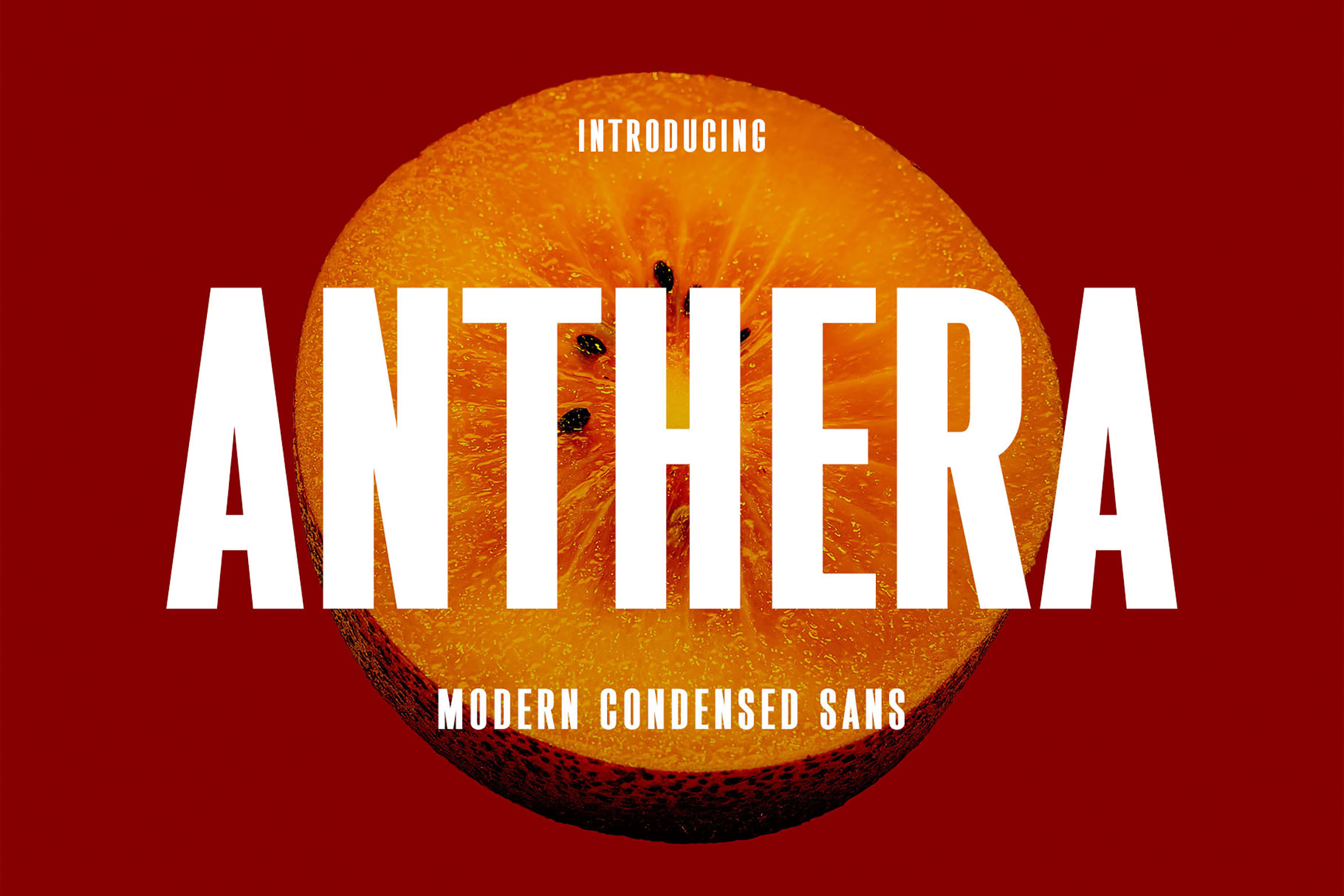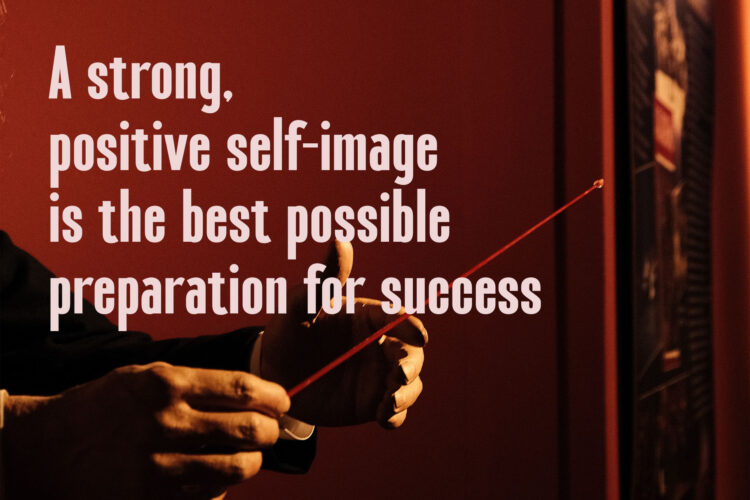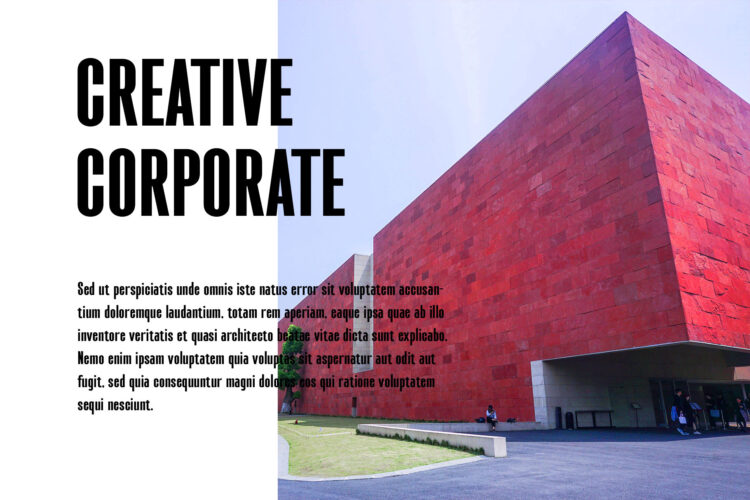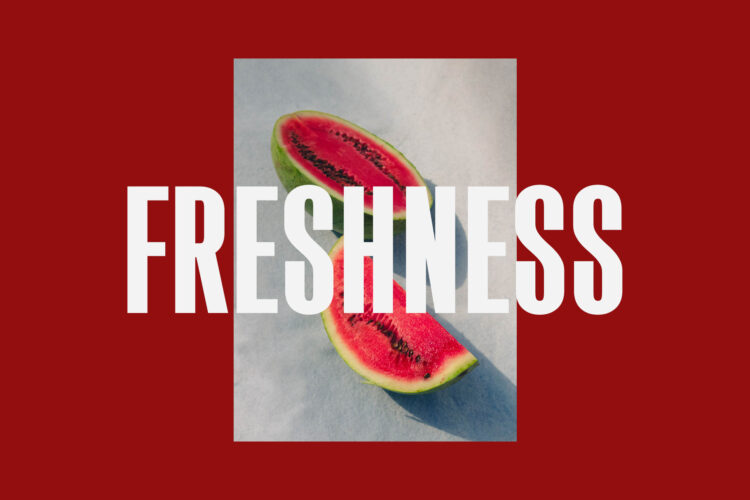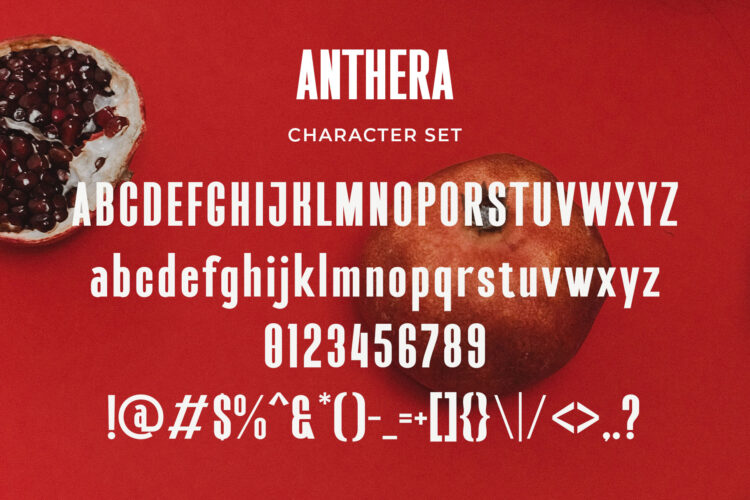
Introducing our new Anthera, modern sans serif font with elegant style this is perfect for branding, logos, invitation, magazines, product packaging and more.
Anthera – Modern Condensed Sans Serif